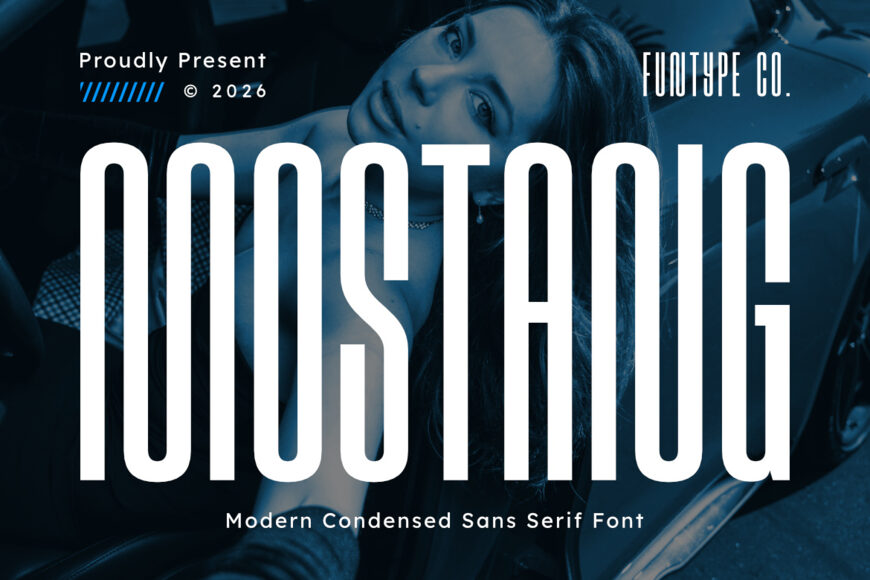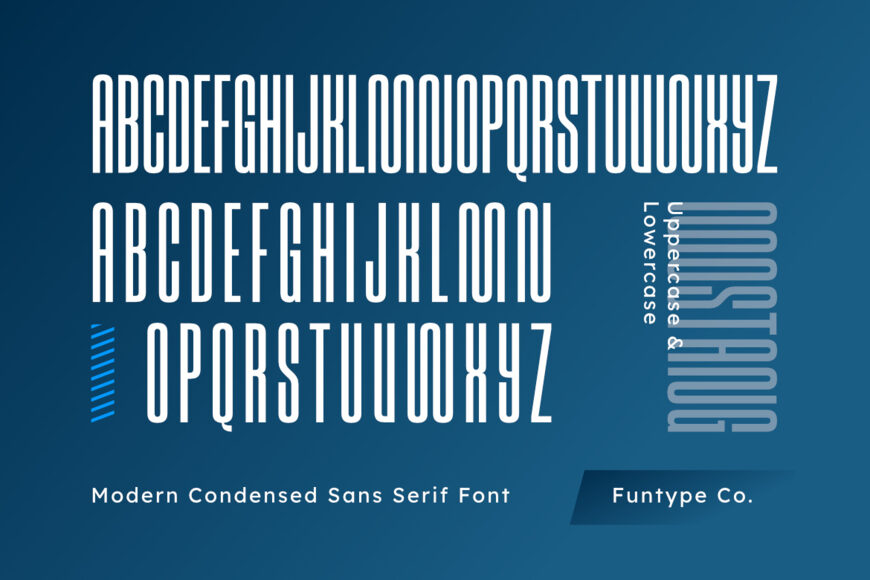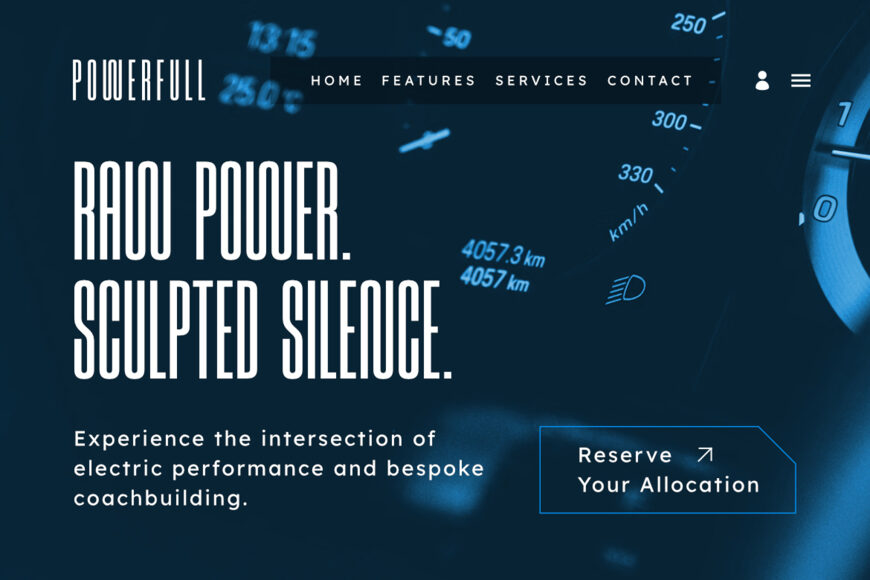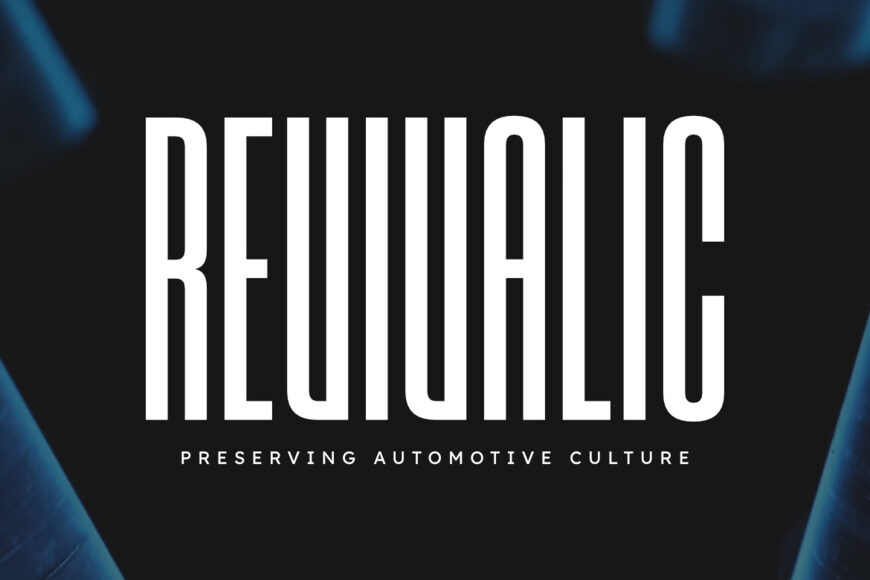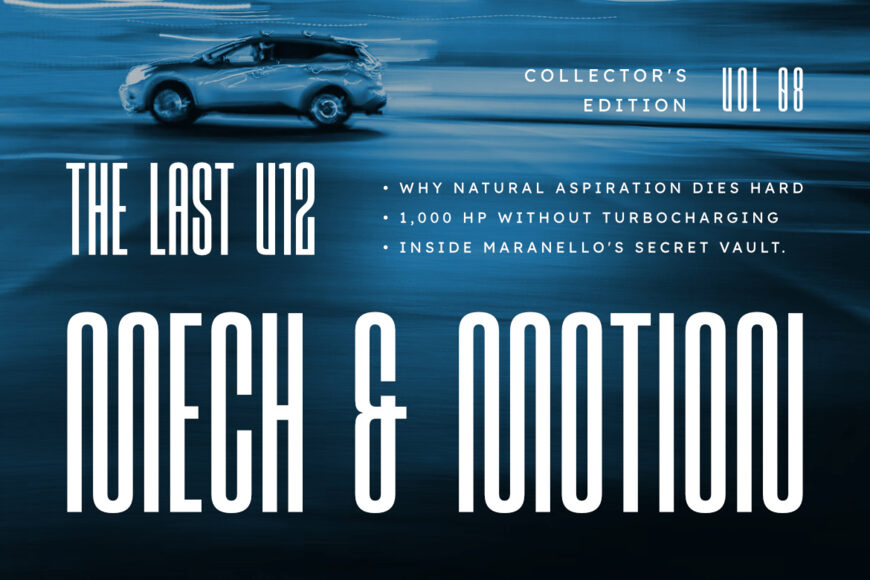
Mostang Font
Mostang is a tall, narrow, and beautifully stylized modern condensed sans serif font tailored for precise, high-impact branding and commercial craft design.
Showcasing an ultra-tall geometric structure, smooth rounded corners, and unique inner curve accents, this typeface is exceptionally qualified for commanding headlines, high-end urban streetwear clothing lines, luxury activewear branding, custom vinyl decals, boutique apparel graphics, and bold promotional posters.